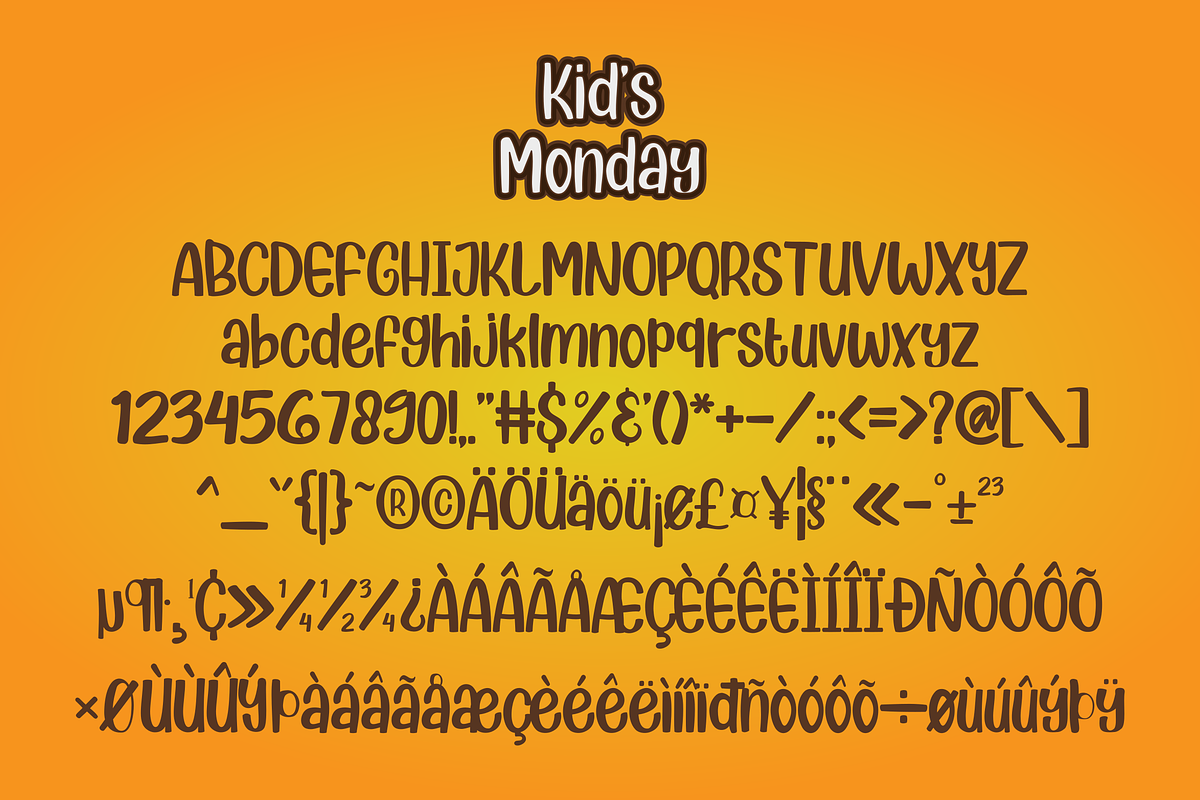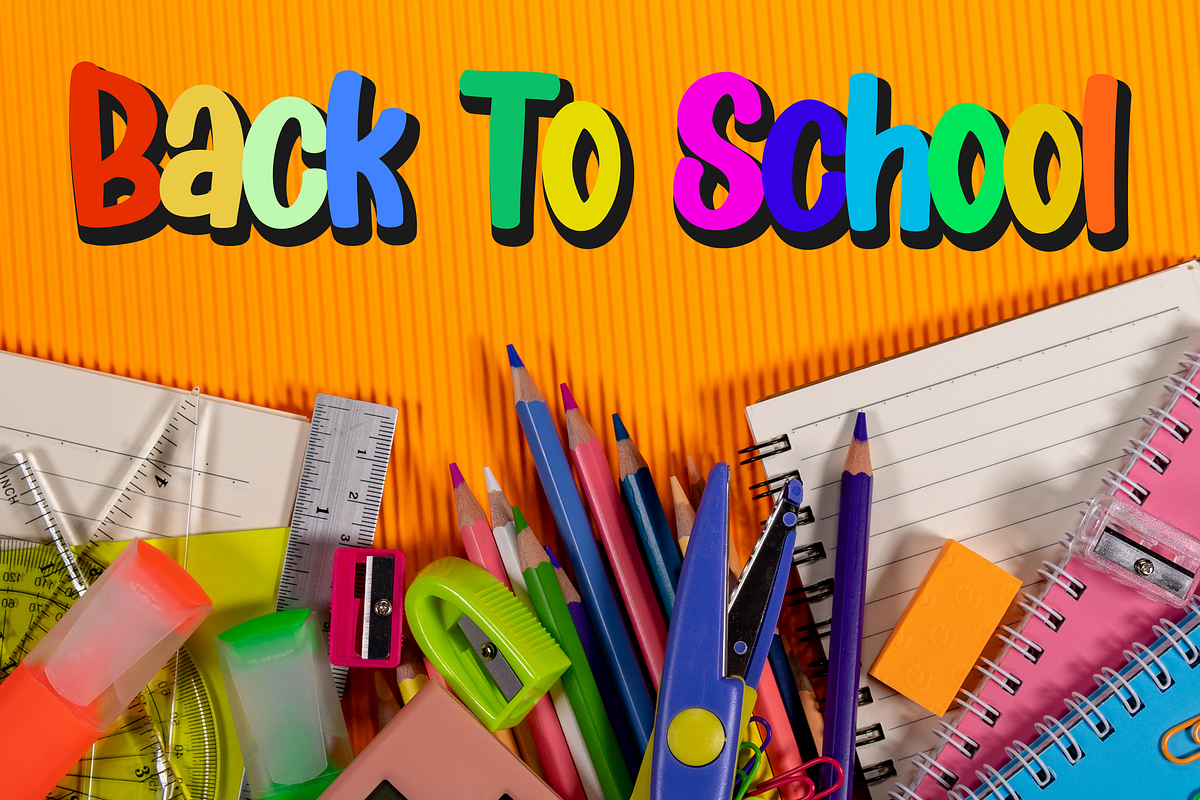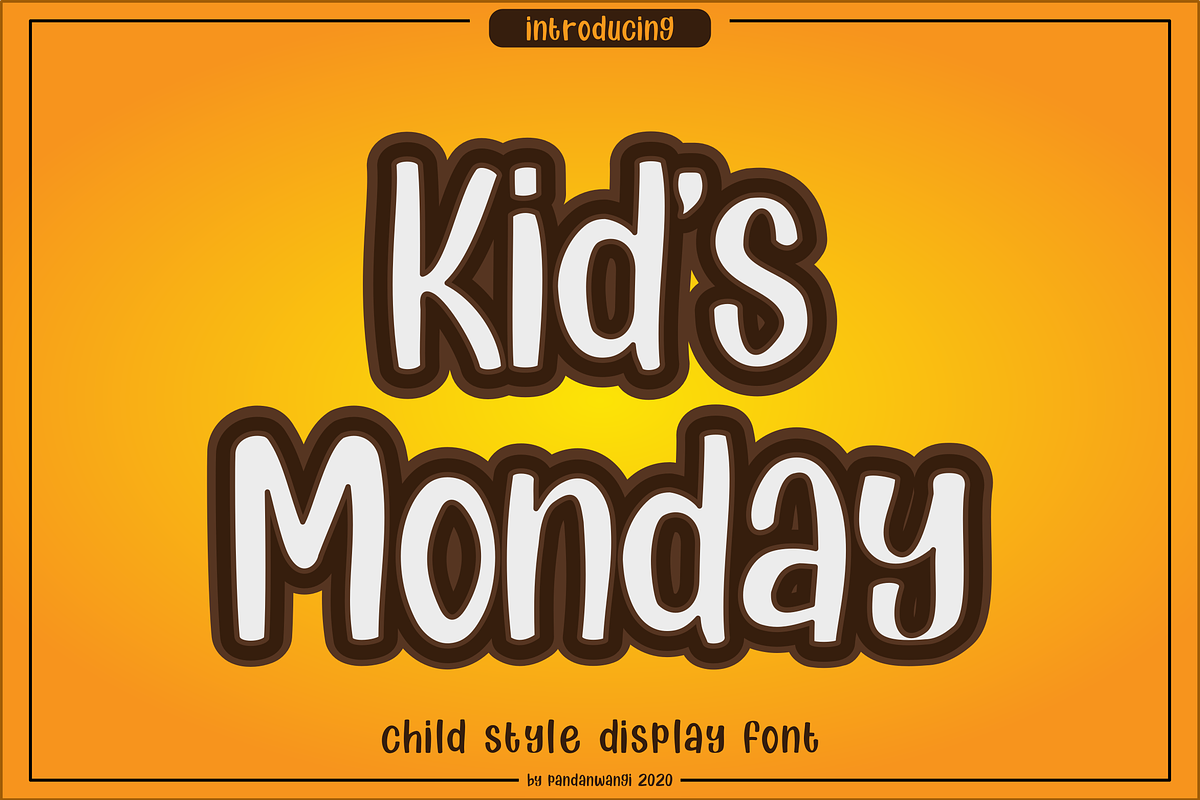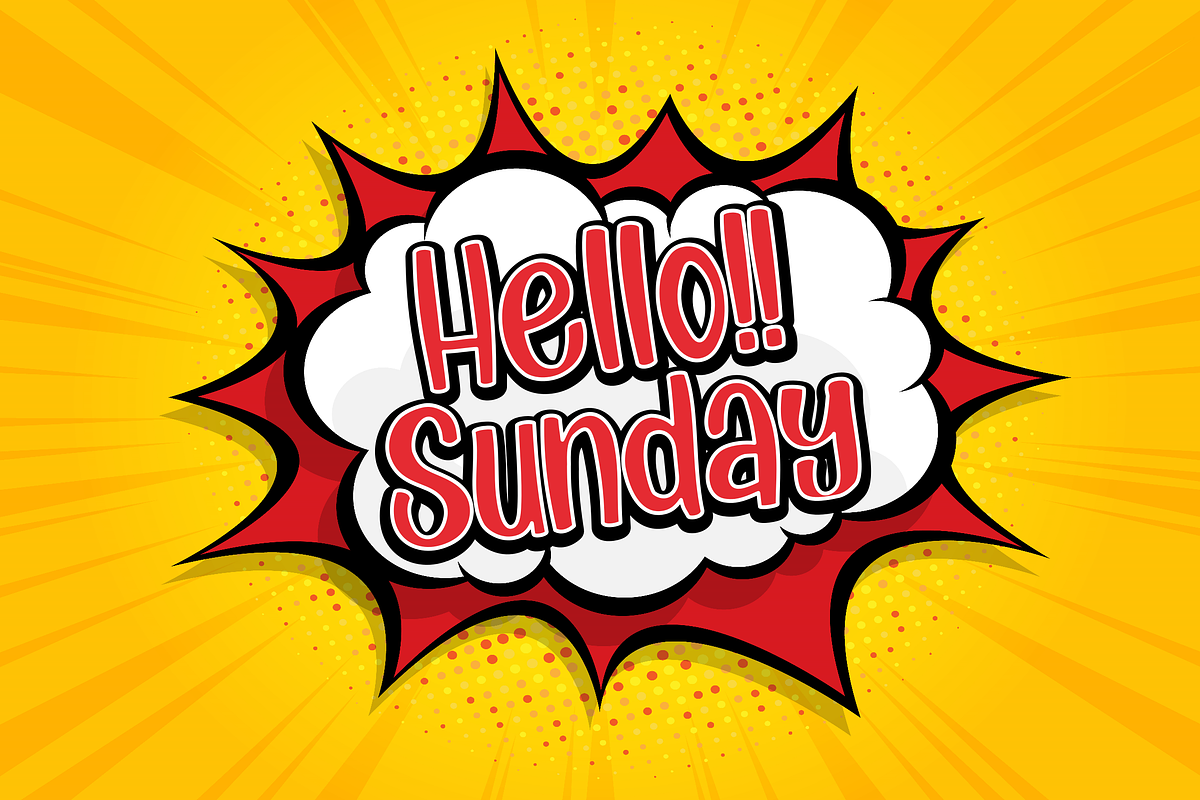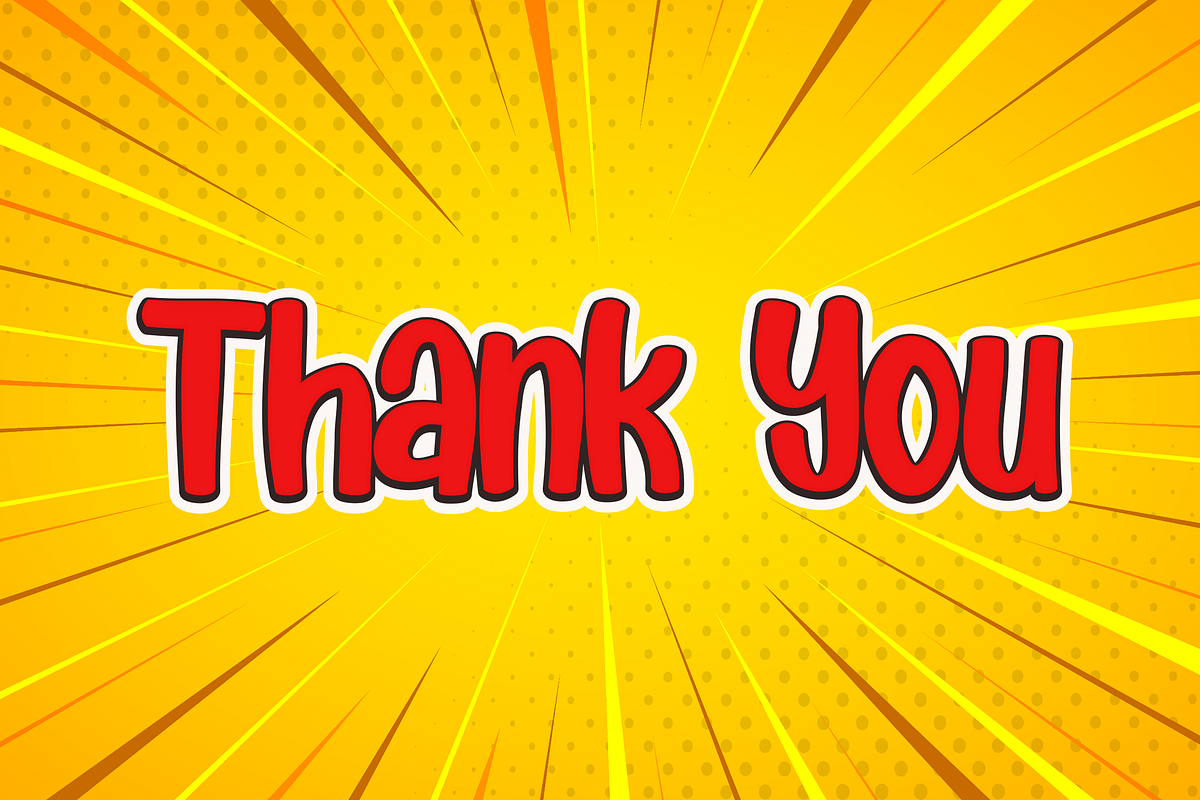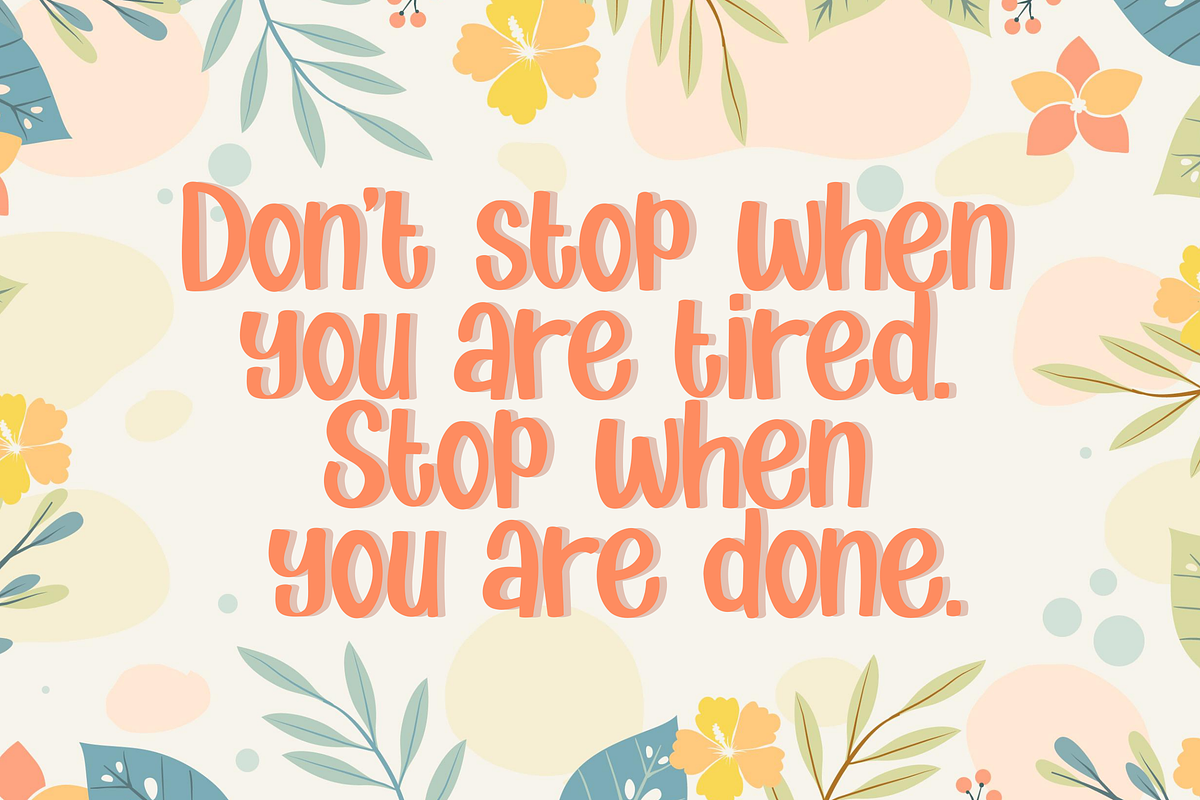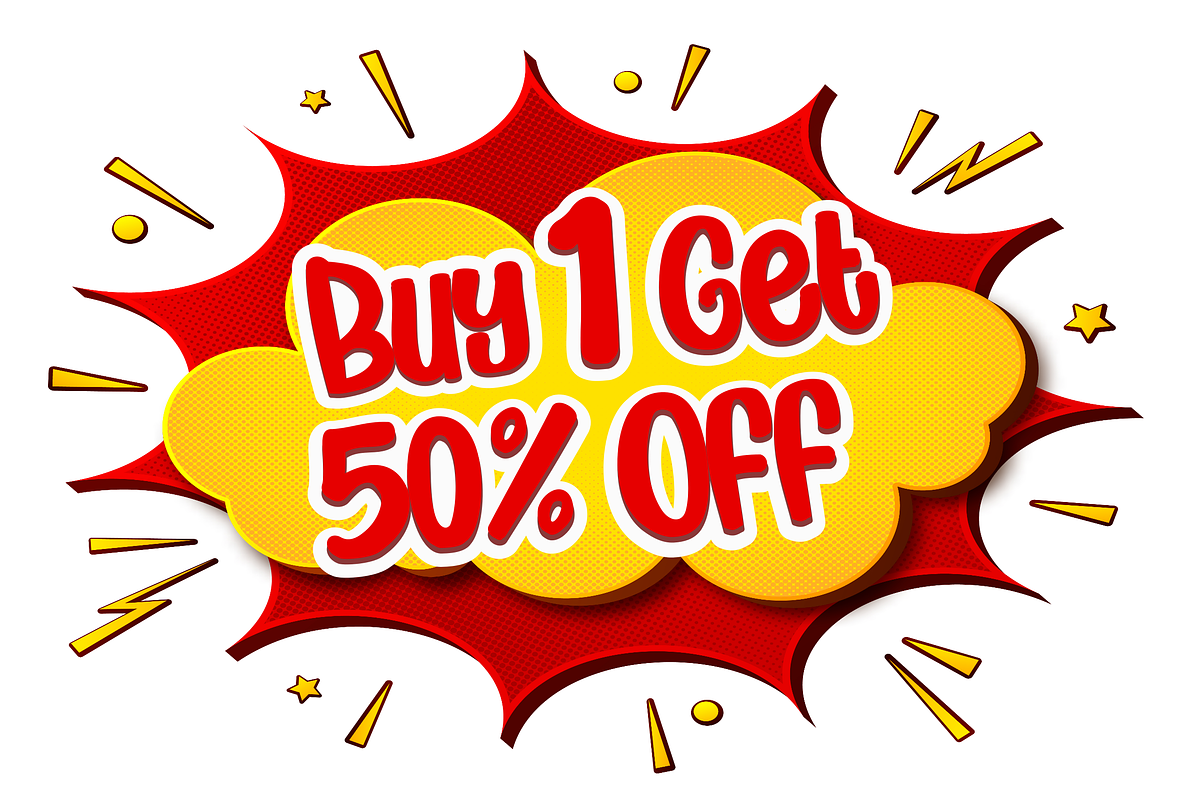
Kids Monday - Fun Display
Kids Monday is a cute, cute and friendly display font. Its natural and unique style makes it especially suitable for large pool designs. Its unique characteristics make it suitable for various purposes such as quotes, t-shirt designs, flyers, YouTube channels, labels, logos and any other design that requires a playful touch. The only limit is your imagination! _____ What included ?